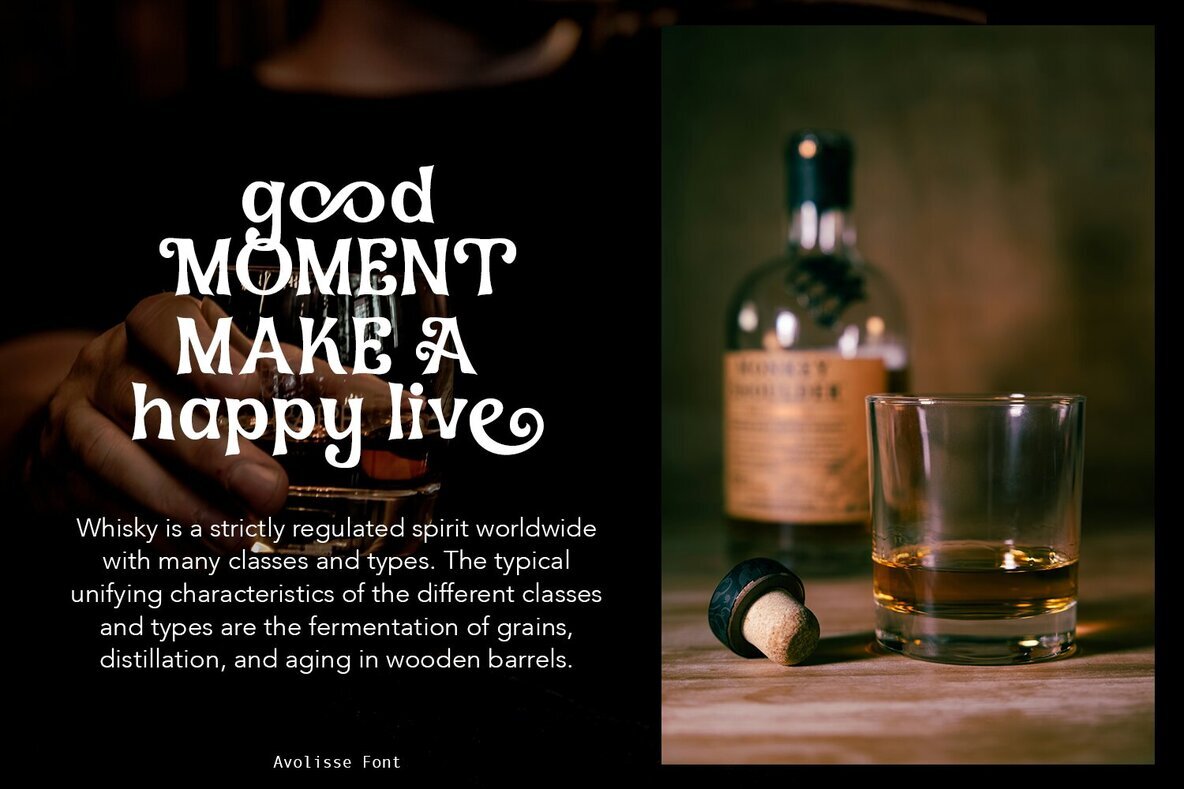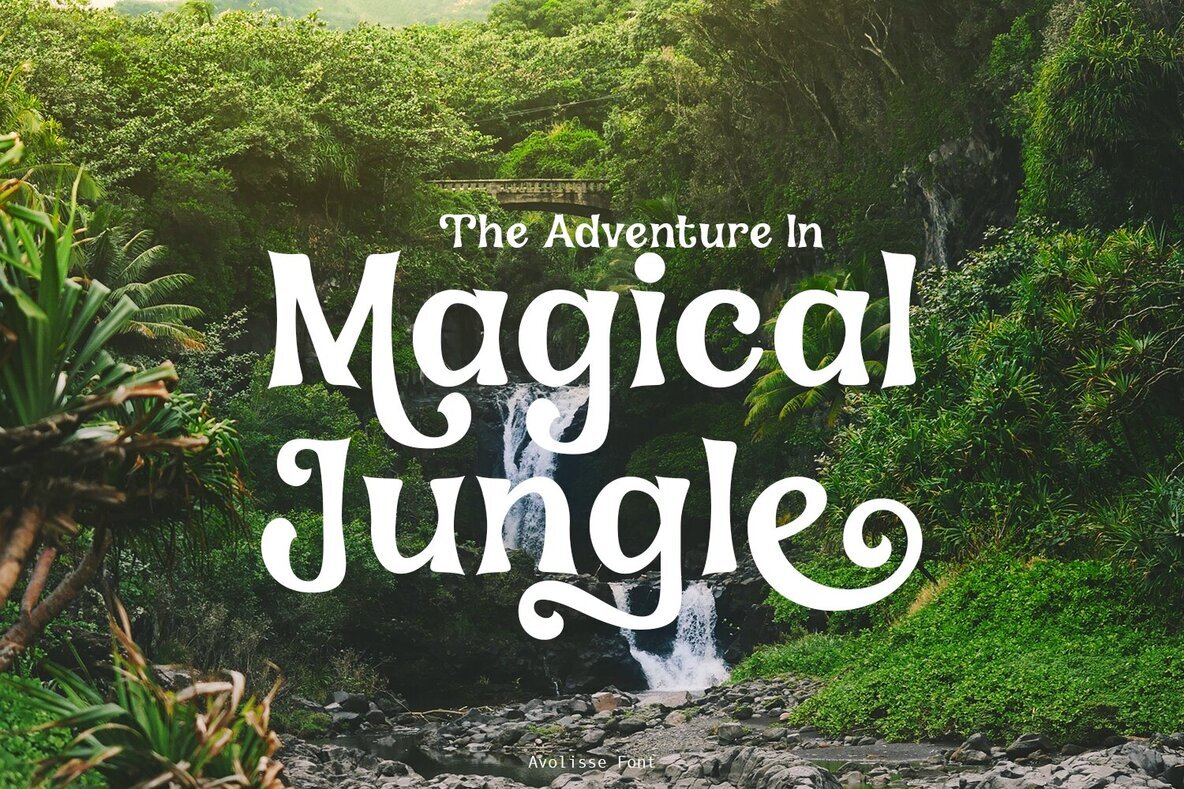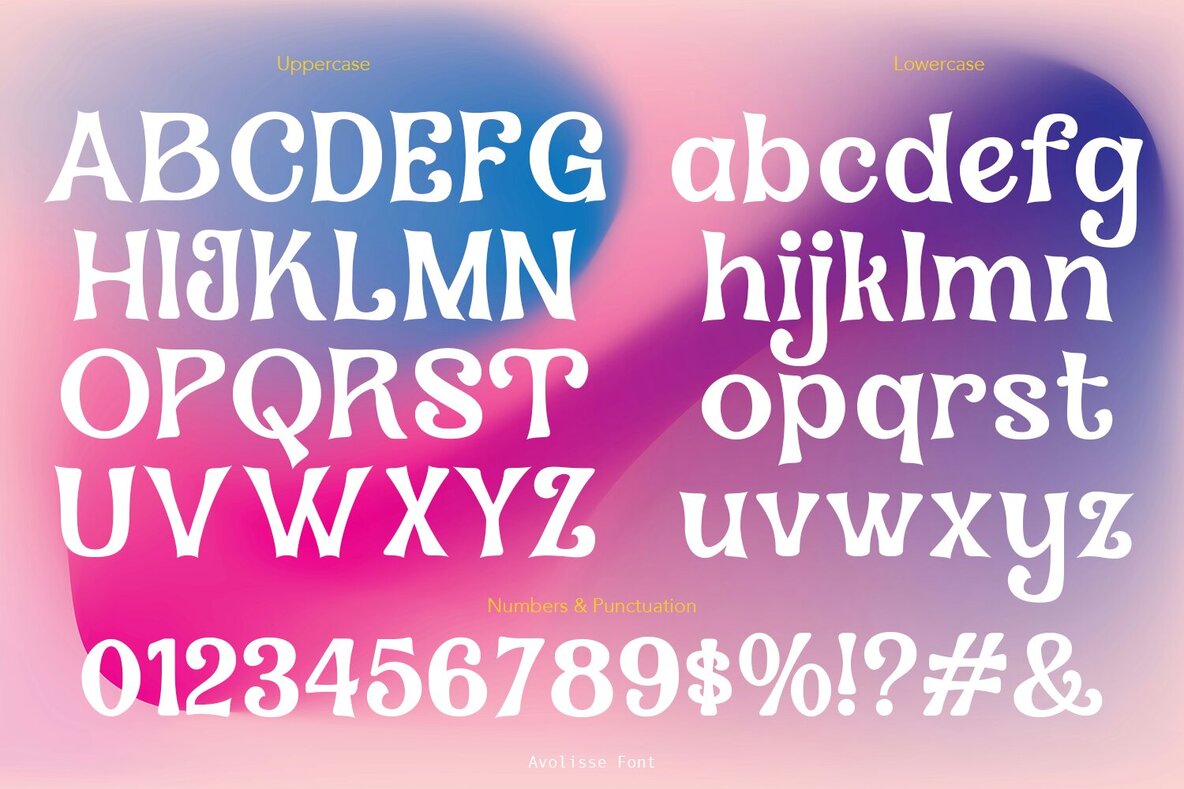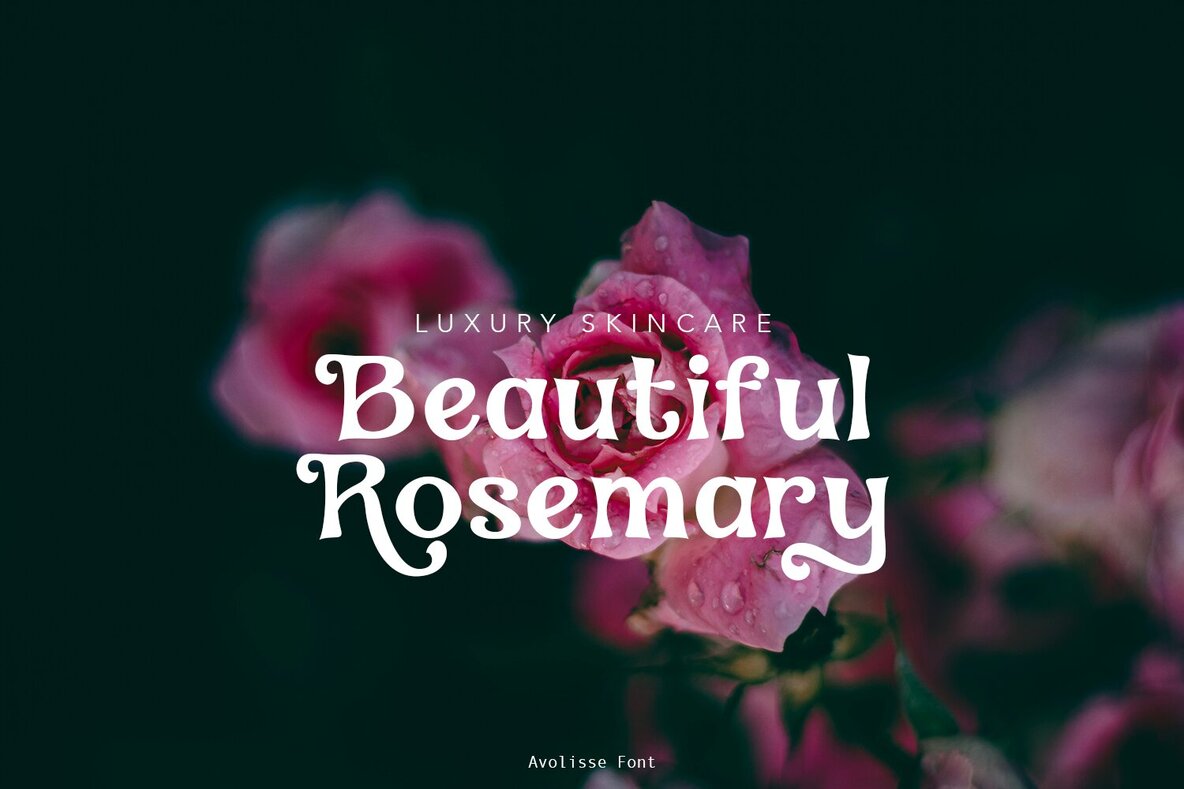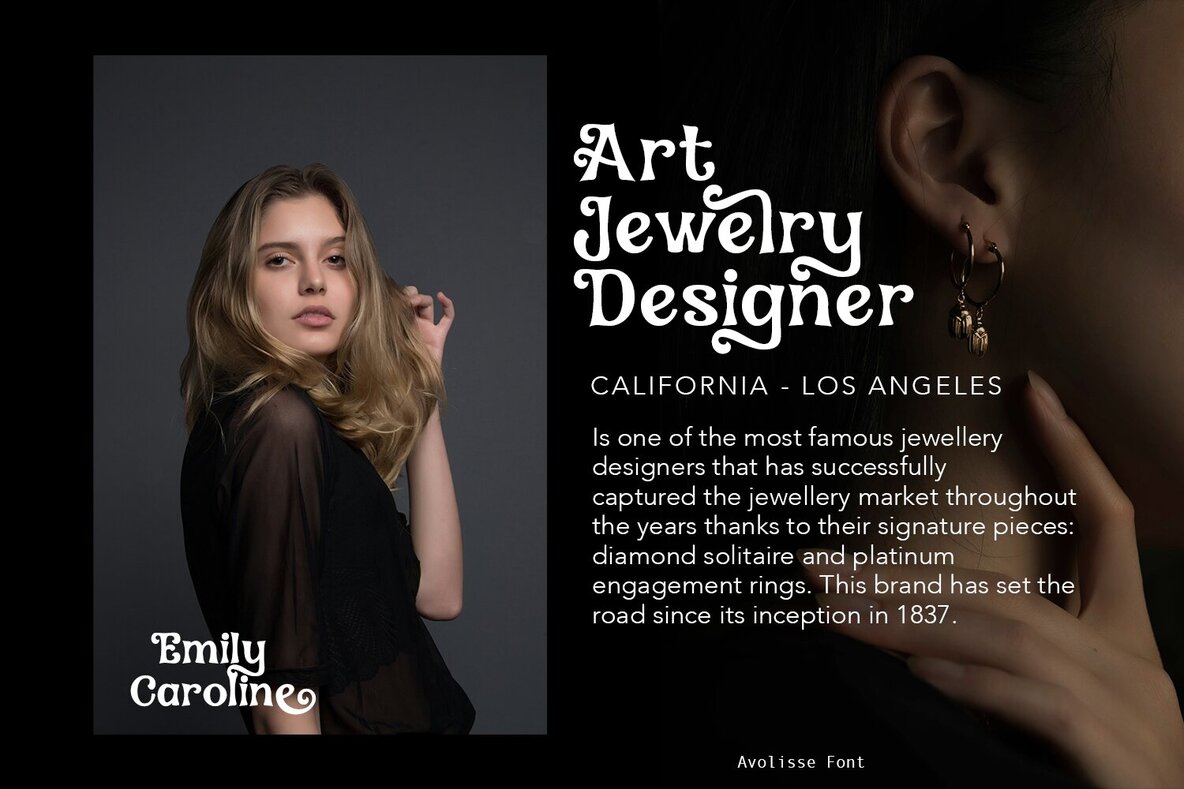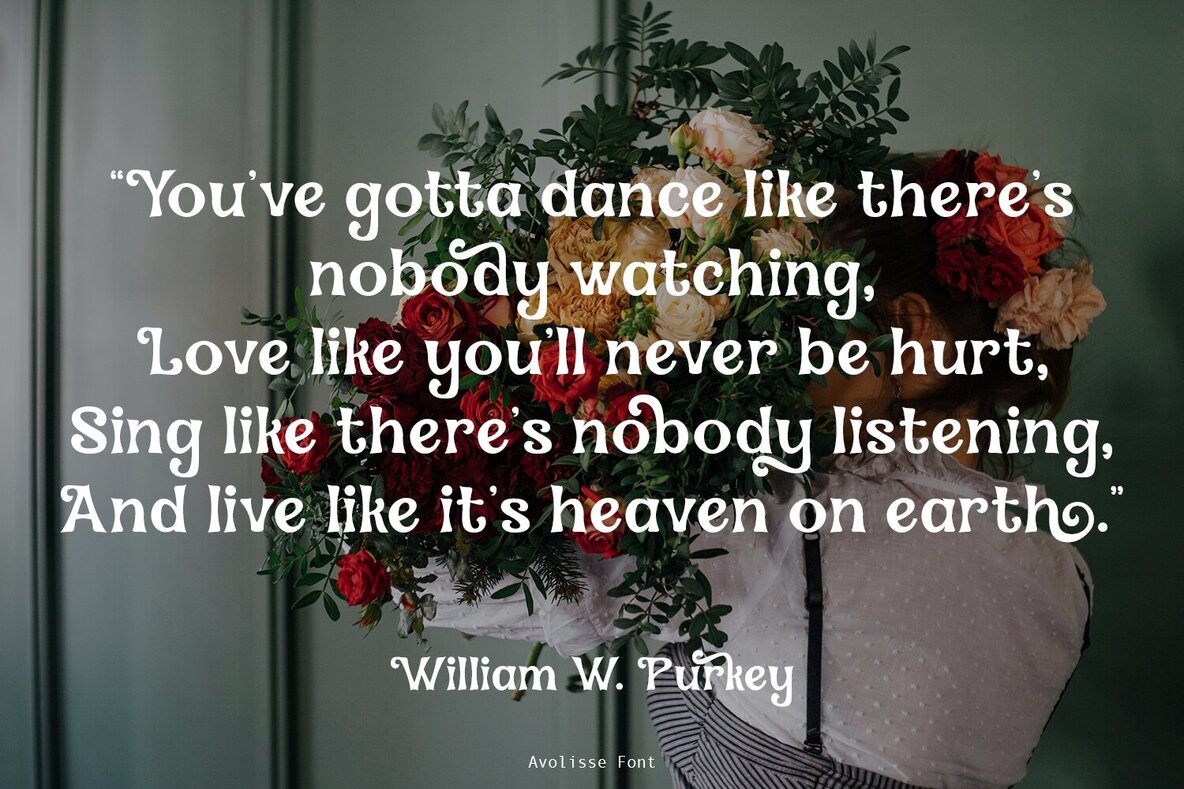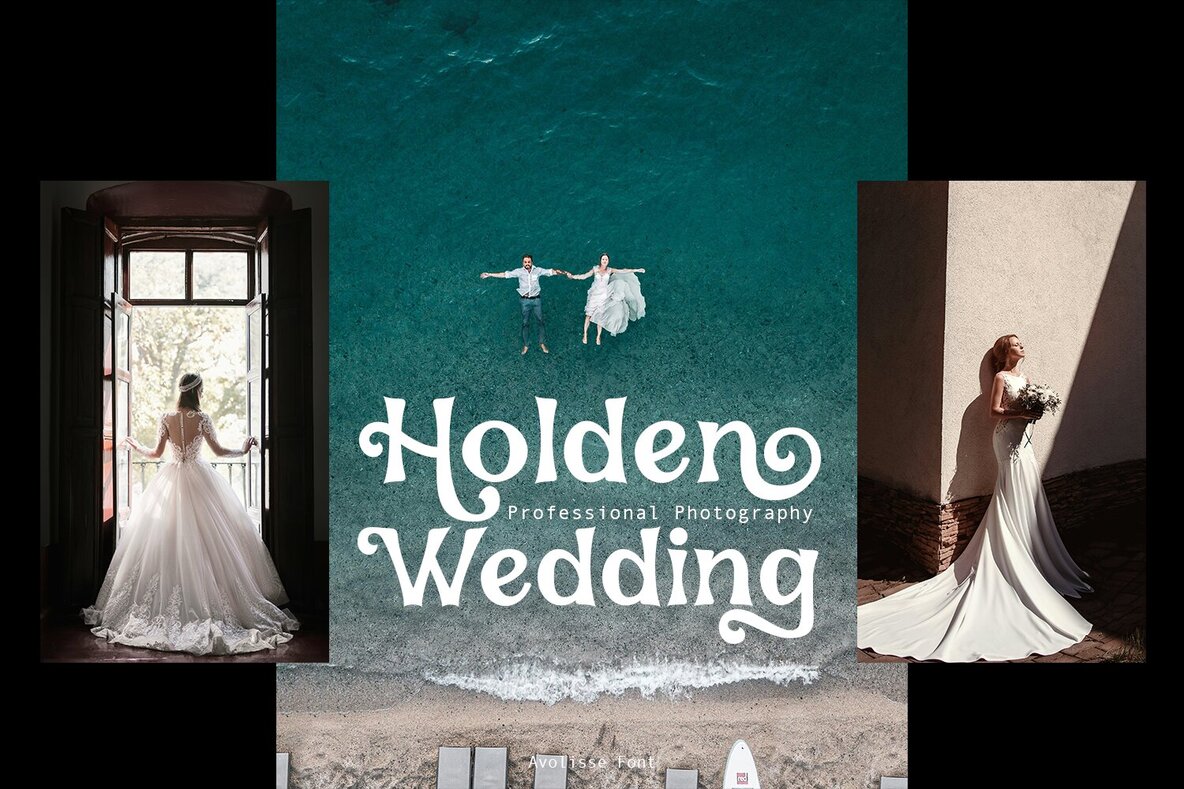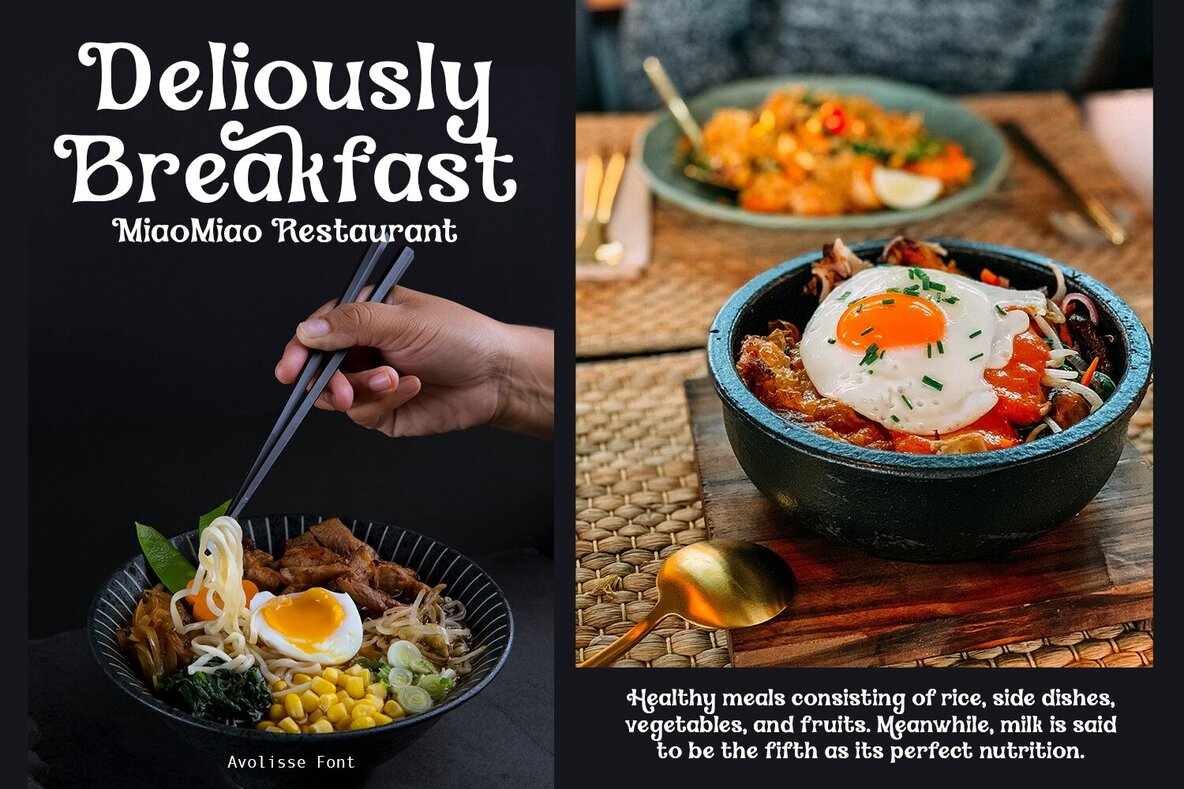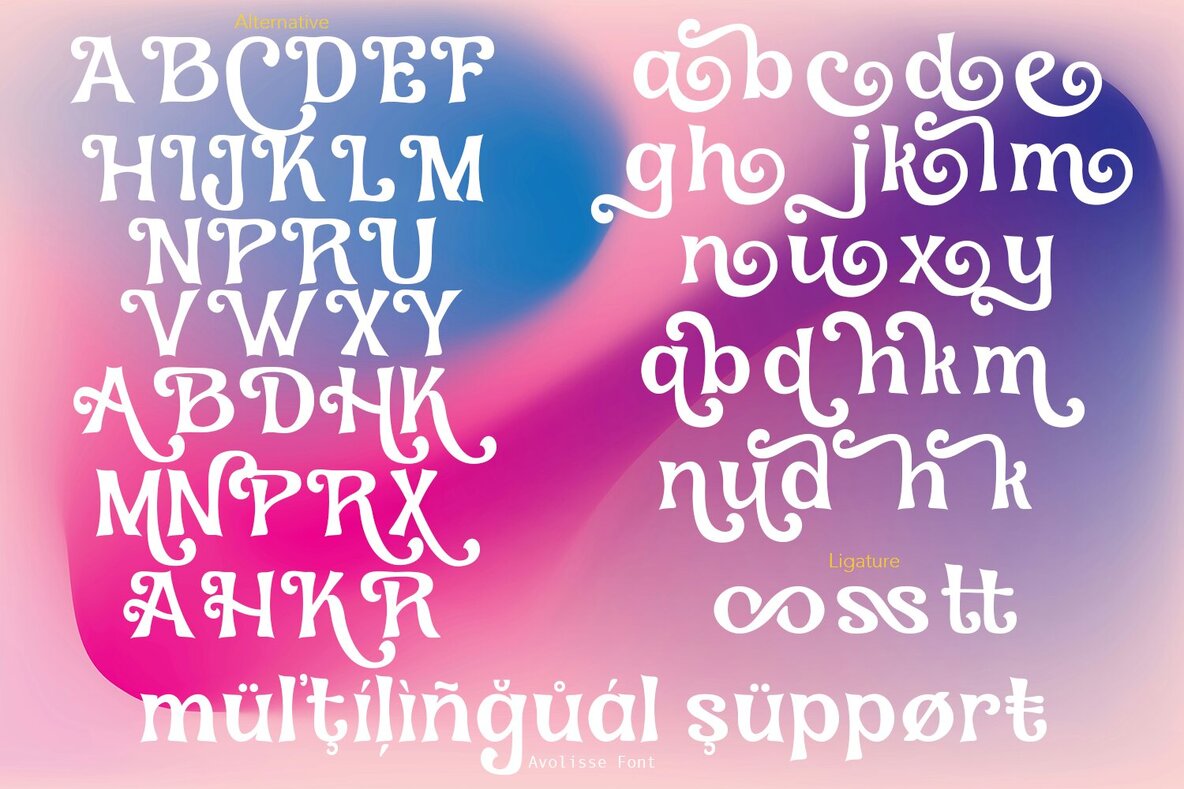
Avolisse Font
Avolisse Regular
Avolisse is a magical, classic font inspired by 80's design, featuring sharp and blunt ends that create a distinctive rhythm for comfortable reading. Its refined yet vintage aesthetic makes it an excellent choice for a range of projects, including logotypes, stickers, greeting and wedding cards, packaging design, headlines, and brand identities.
Ideal for both digital and print mediums, Avolisse shines on t-shirts, posters, magazines, books, websites, and even social media like Instagram. This versatile font offers a nostalgic touch while ensuring readability and style, perfect for designers looking to add a classic, elegant flair to their work.